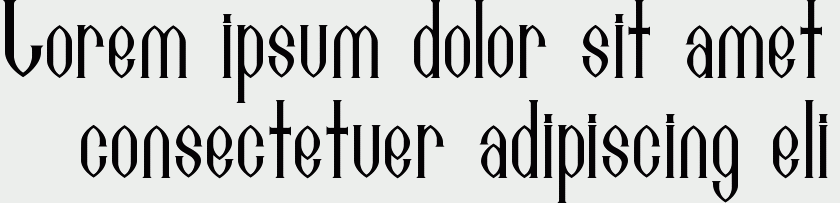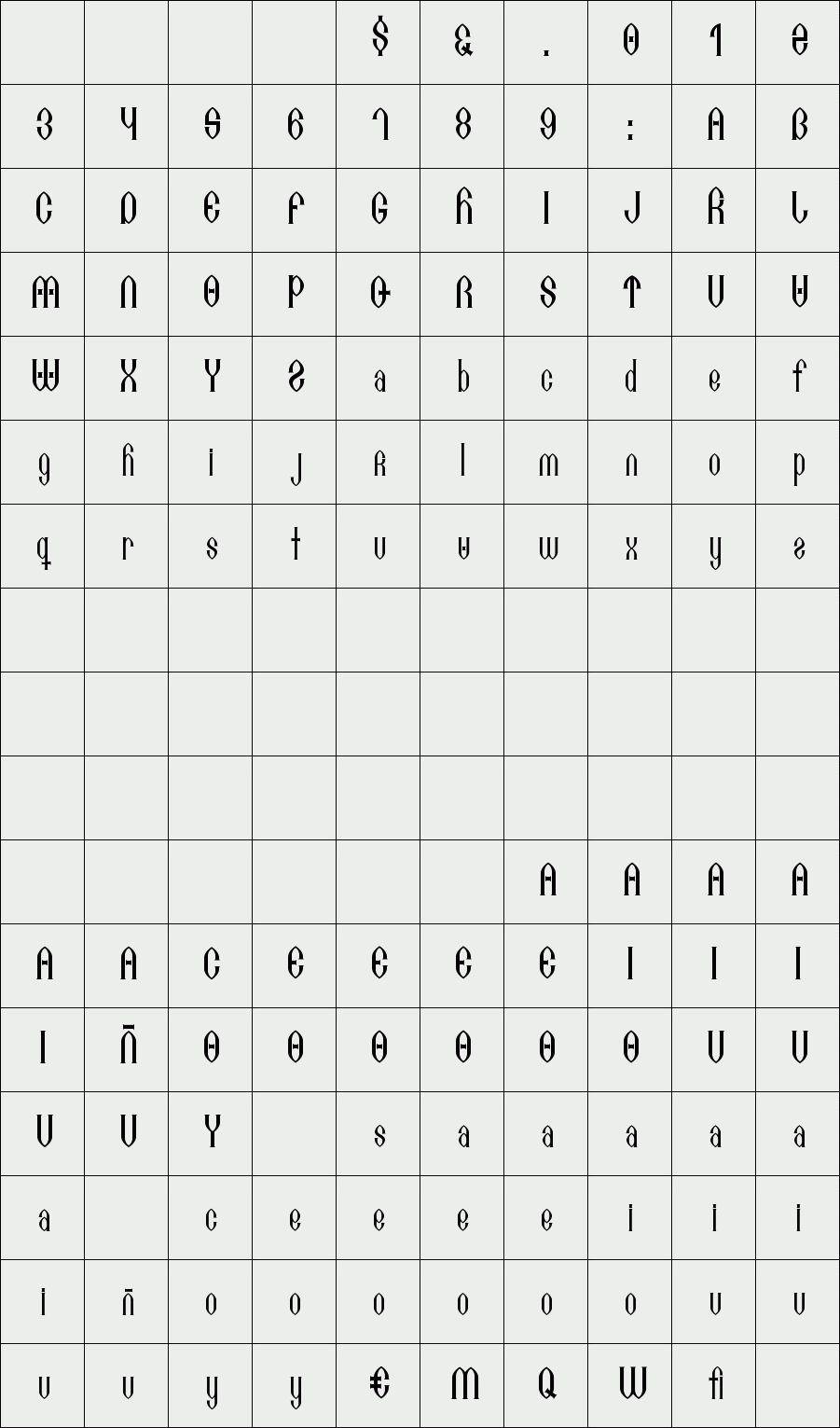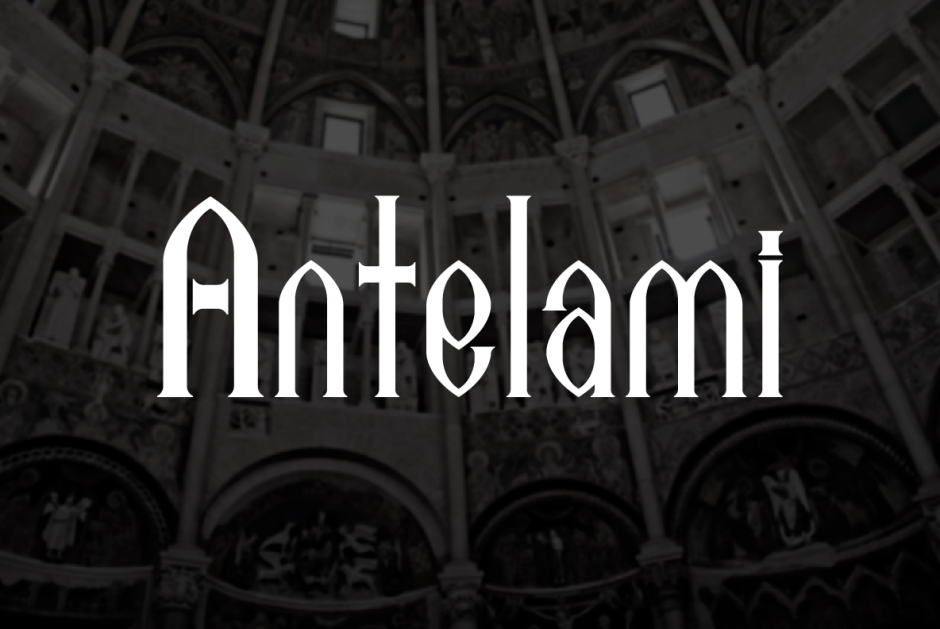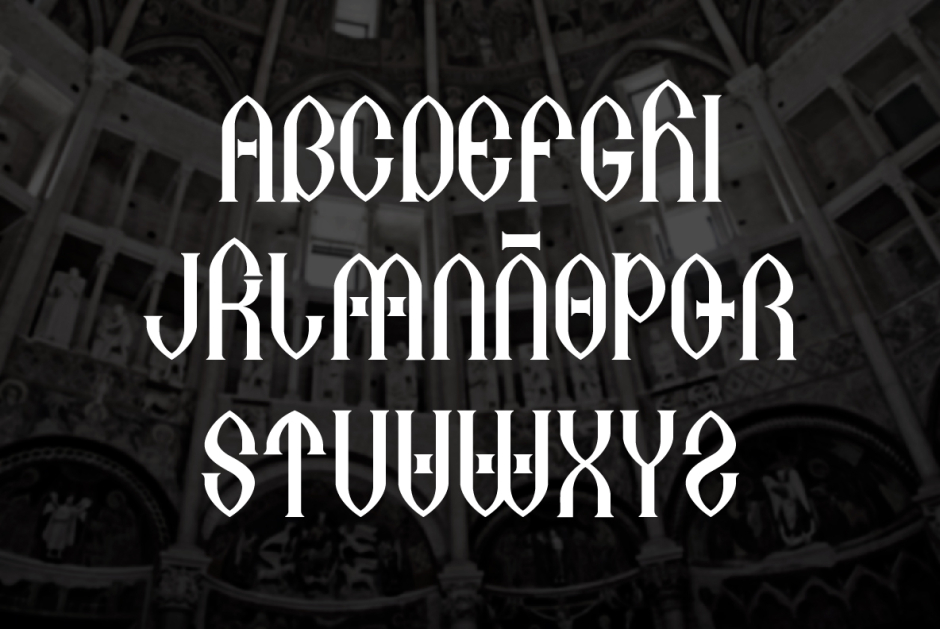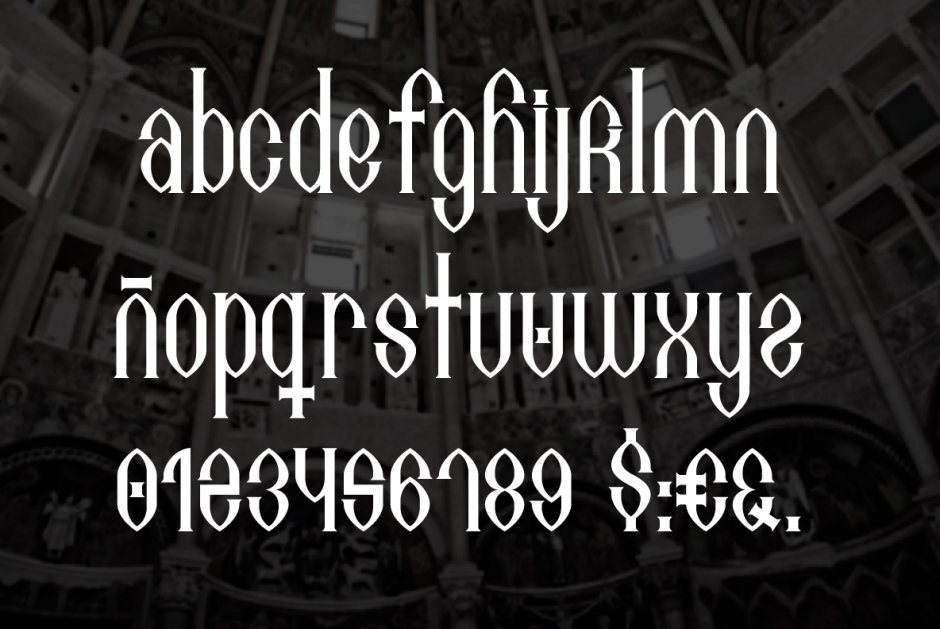
Antelami
Antelami is a font with particular style, located between a Romanesque and Gothic period. The endings and serifs give it a Roman-Gothic and religious air.
Letter Set (A-Z)
Letter set (a-z)
Set of numbers (0-9)
Some symbols